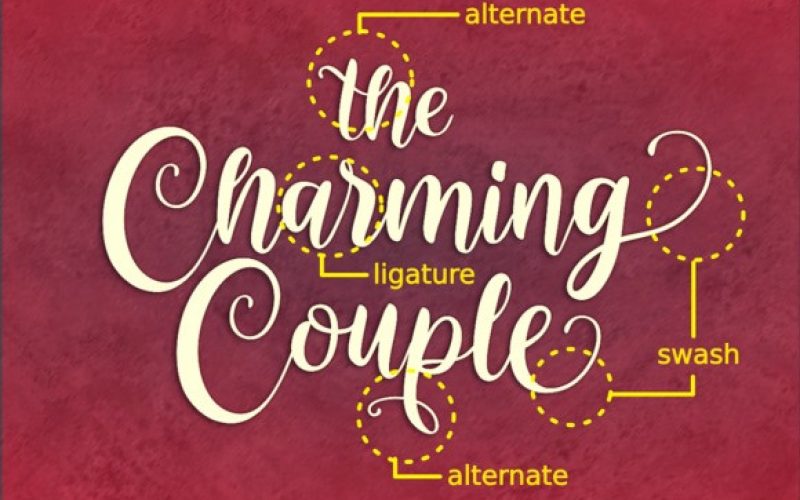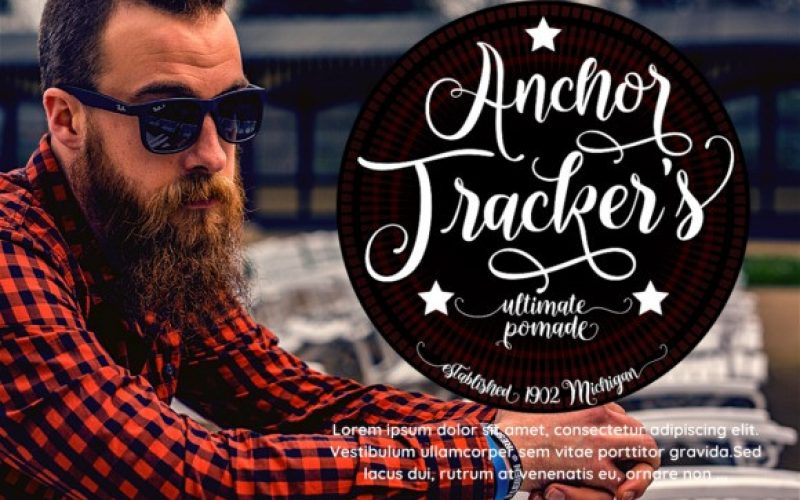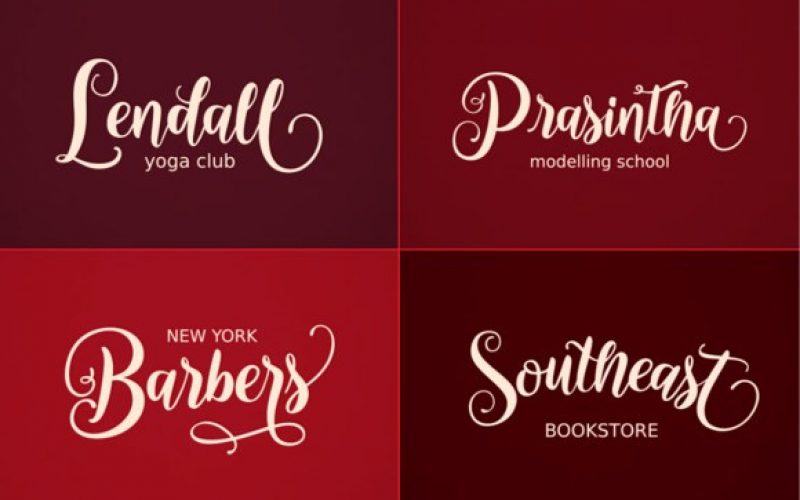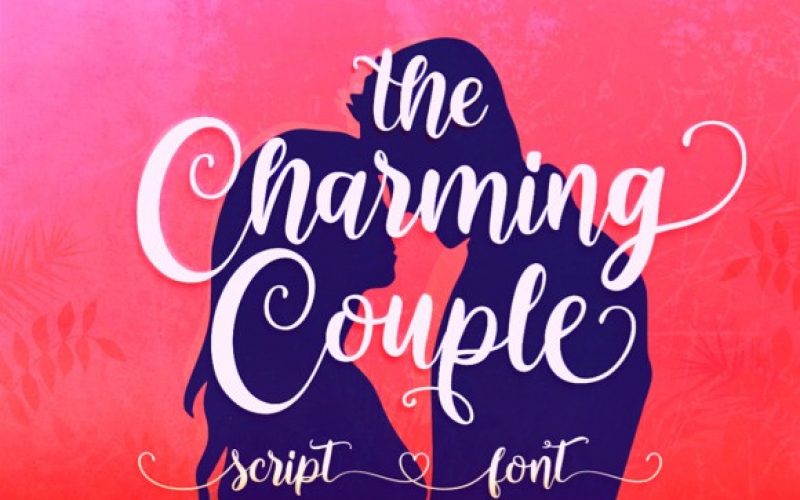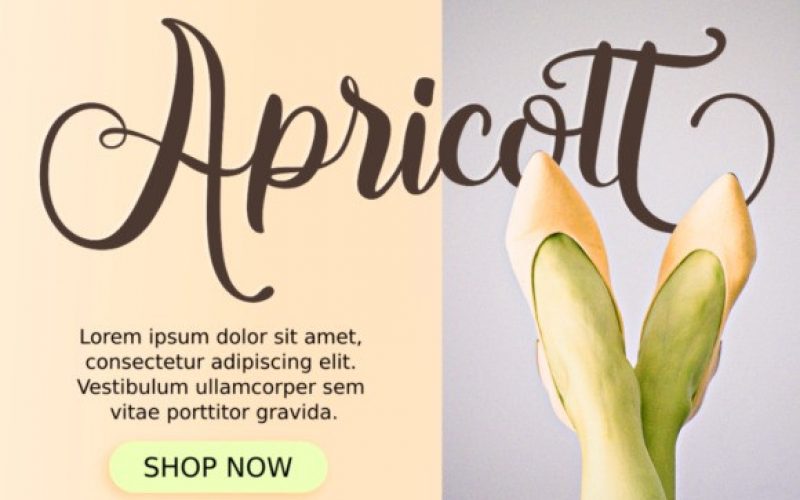
Charming Couple Calligraphy Font
The Charming Couple is an enchanting handwritten font. This versatile script font has a wide spectrum of applications ranging from greeting cards to headlines and is guaranteed to add a romantic feel to your next project.
The Charming Couple is PUA encoded which means you can access all of the beautiful glyphs and swashes with ease!
Classification: | Calligraphy, Script |